How to create the spotlight font
Create the Spotlight Font
Add your letters to the inside of the bubbles, making sure at least one edge of each letter touches the bubble
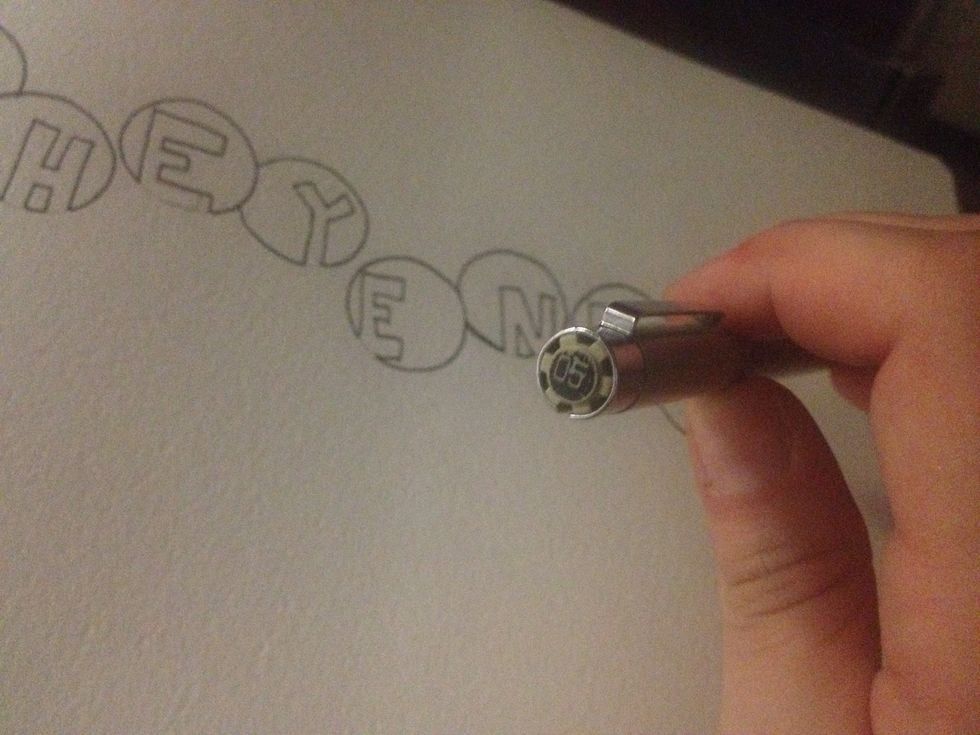
Add your letters to the inside of the bubbles, making sure at least one edge of each letter touches the bubble
Go over the lines with an 05 micron pen (or a thin, felt tip pen) **make sure to NOT go over the lines that are touching the edges, a better example is on the next step
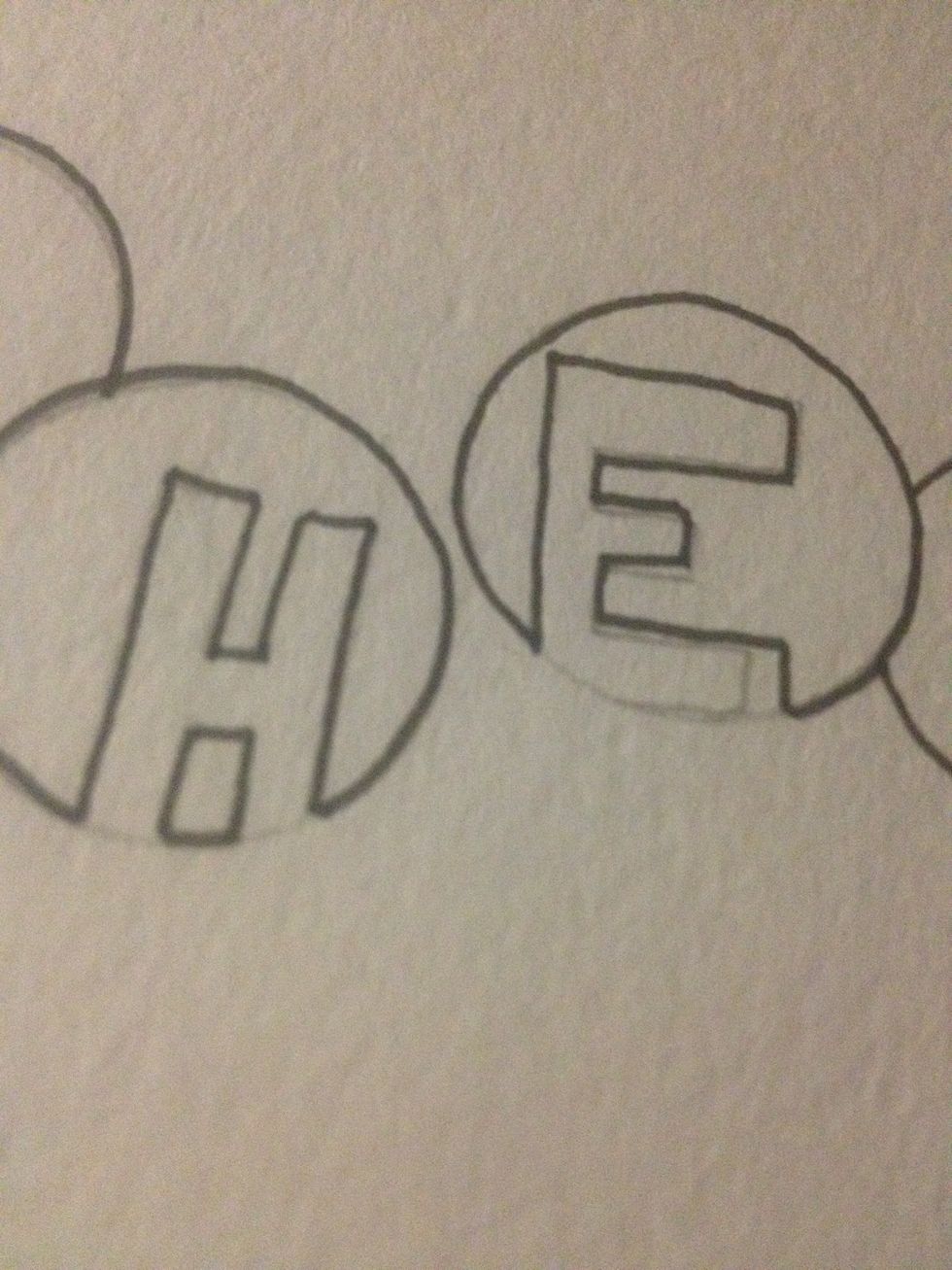
Go over the lines with an 05 micron pen (or a thin, felt tip pen) **make sure to NOT go over the lines that are touching the edges, a better example is on the next step
See!
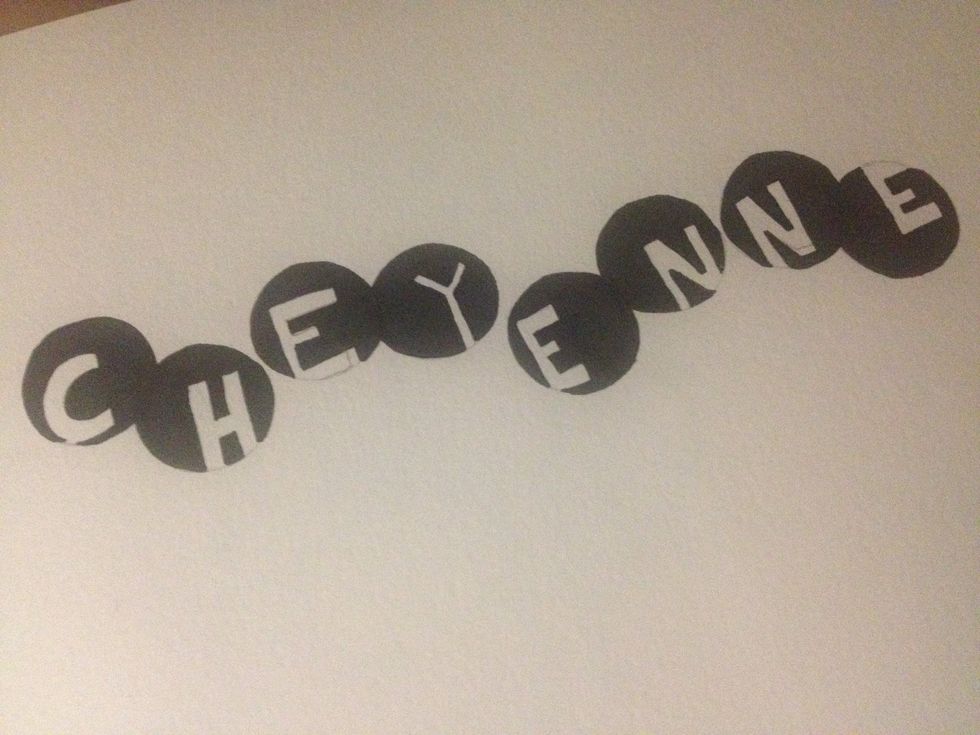
See!
Fill in the outside of the letters with a thicker felt tip pen, I used a fine prisma marker in black
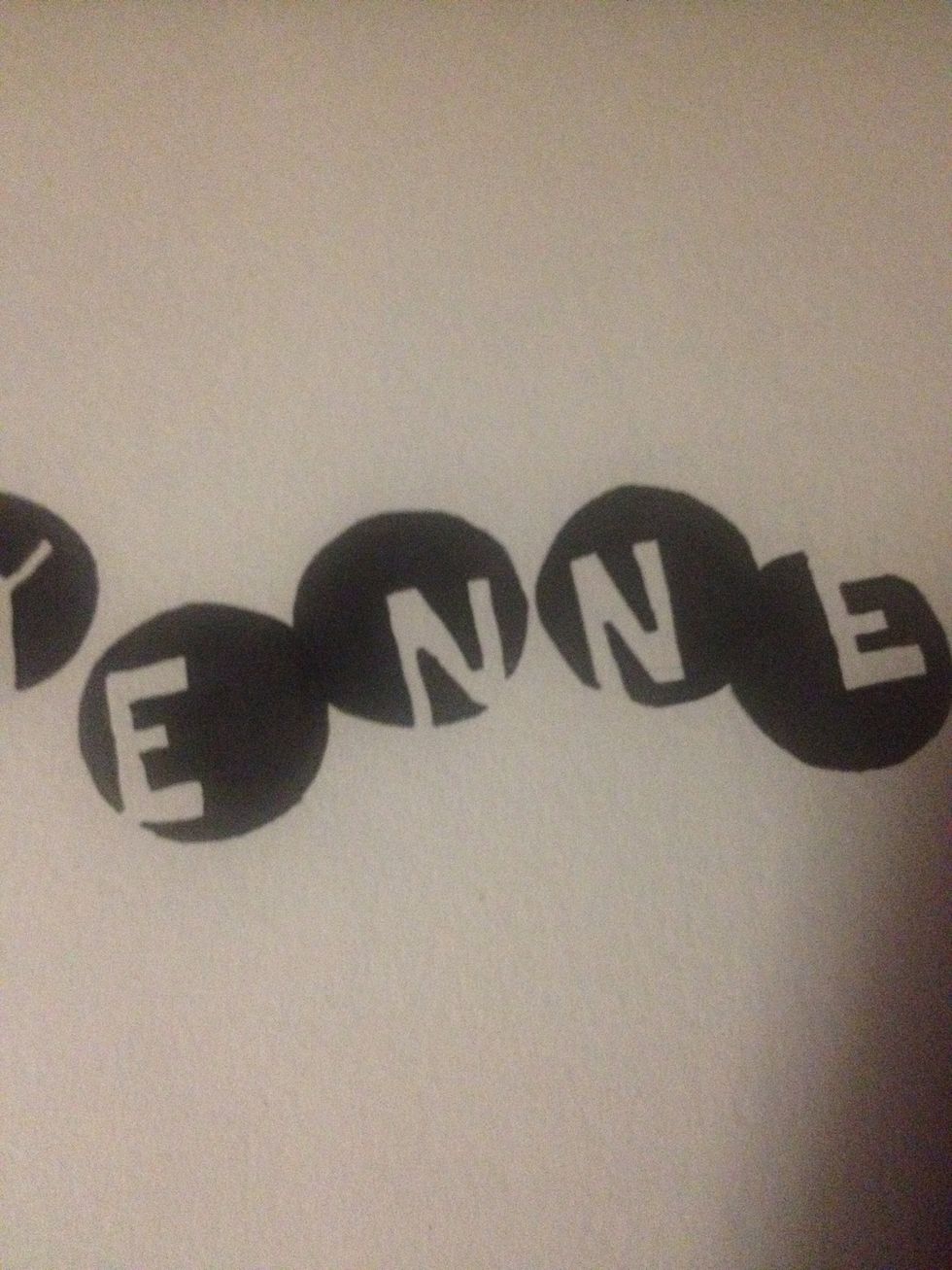
Fill in the outside of the letters with a thicker felt tip pen, I used a fine prisma marker in black
Erase the pencil lines!
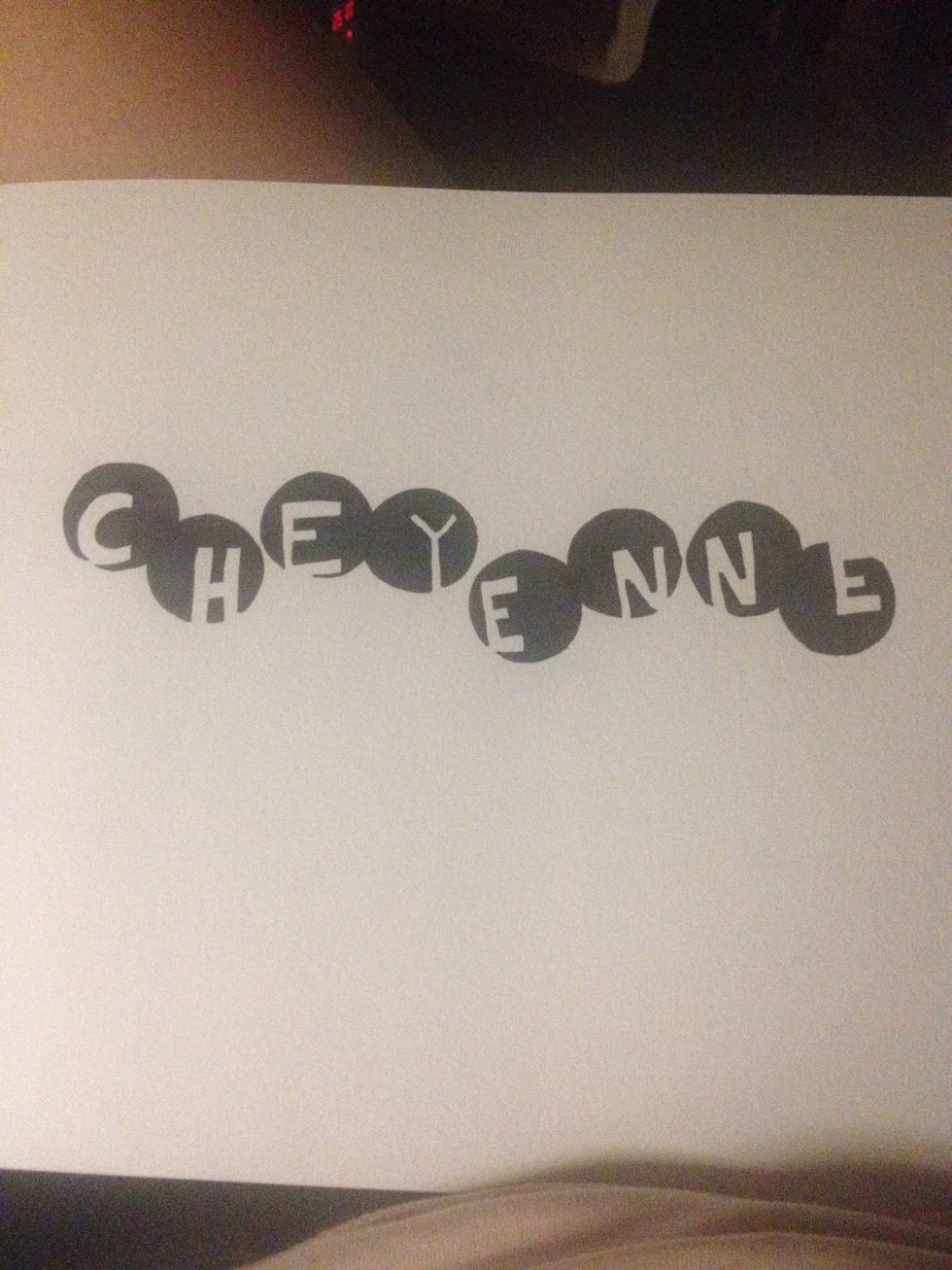
Erase the pencil lines!
Done!